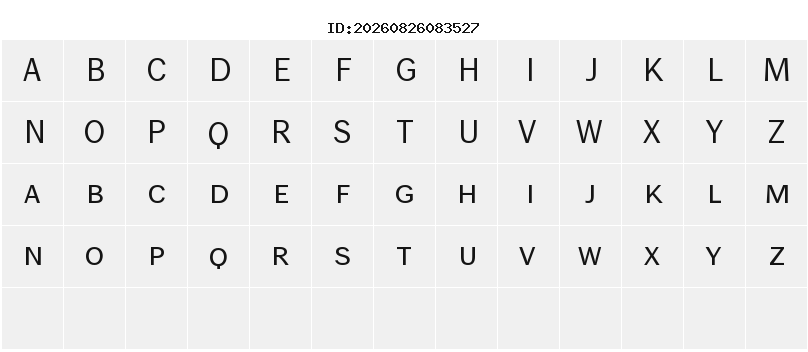
Wendelin Preview
About Wendelin.ttf
Wendelin.ttf is a modern, elegant sans-serif font designed for ultimate readability and visual harmony. Perfect for branding, headlines, web design, and print materials.